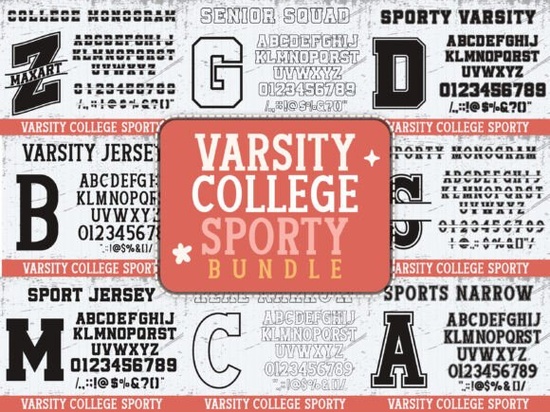
If you're looking for a font that embodies the spirit and energy of college sports, the Varsity College Sporty Bundle Font is a fantastic choice. This bold and energetic typeface is perfect for creating custom team gear, spirit wear, or even home decor. It's a modern take on classic varsity lettering, making it ideal for sports enthusiasts and college fans alike.
Why Choose Varsity College Sporty Bundle Font?
The Varsity College Sporty Bundle Font stands out with its dynamic and versatile design. Whether you're designing for a school event, a local sports team, or just adding a sporty touch to your personal projects, this font delivers. Its bold and clean lines make it easy to read and highly impactful, ensuring your message gets noticed.
Perfect for Sports Enthusiasts and College Fans
For those who love sports and are passionate about their college, this font is a must-have. It captures the excitement and camaraderie of college sports, making it a great choice for creating personalized items like t-shirts, mugs, and posters. You can easily add a professional and authentic look to your designs, making them stand out in any setting.
Versatile and Easy to Use
One of the best things about the Varsity College Sporty Bundle Font is its versatility. It’s not just limited to sports-related projects. You can use it for a wide range of creative endeavors, from branding and marketing materials to DIY crafts and home decor. The font’s bold and clear style makes it easy to work with, even if you’re not a professional designer.
How to Use Varsity College Sporty Bundle Font in Your Projects
Incorporating the Varsity College Sporty Bundle Font into your designs is straightforward. Here are a few tips to help you get started:
- Choose the Right Colors: Stick to your team’s colors or go with a classic red and blue for a traditional varsity look. Bold, vibrant colors will complement the font’s strong and energetic style.
- Combine with Other Fonts: While the Varsity College Sporty Bundle Font is striking on its own, you can also pair it with other fonts for a more dynamic effect. Consider using a simple, clean font like Welcome for subheadings or body text.
- Experiment with Layouts: Play around with different layouts to see what works best for your project. You can center the text, align it to the left, or even create a diagonal layout for a more dynamic look.
Practical Tips for Using Varsity College Sporty Bundle Font
To get the most out of the Varsity College Sporty Bundle Font, here are a few practical tips:
- Test Different Sizes: Experiment with different font sizes to see what works best for your design. Larger sizes can be great for headlines, while smaller sizes can be used for body text.
- Use High-Resolution Images: If you’re using the font in a graphic or poster, make sure to use high-resolution images to ensure the best possible quality.
- Keep It Simple: Sometimes less is more. Don’t overcrowd your design with too many elements. Let the Varsity College Sporty Bundle Font be the star of the show.
By following these tips, you can create stunning and impactful designs that truly capture the spirit of college sports. Whether you’re a seasoned designer or just starting out, the Varsity College Sporty Bundle Font is a valuable addition to your toolkit.